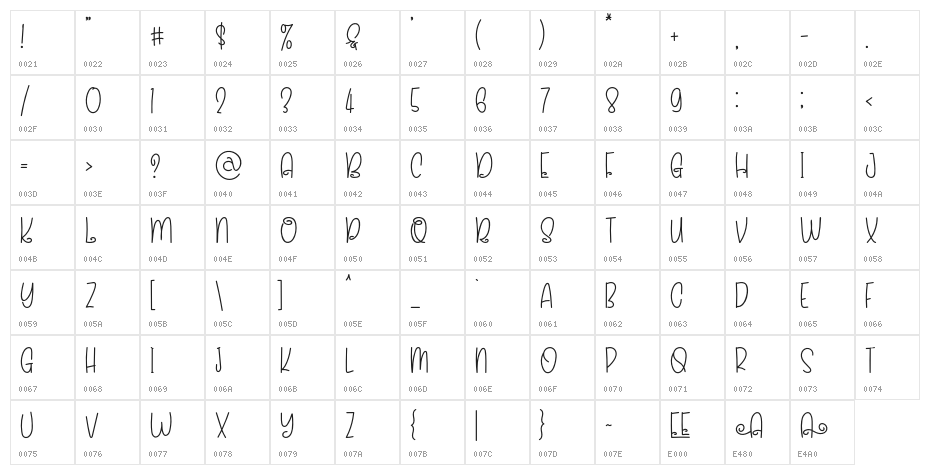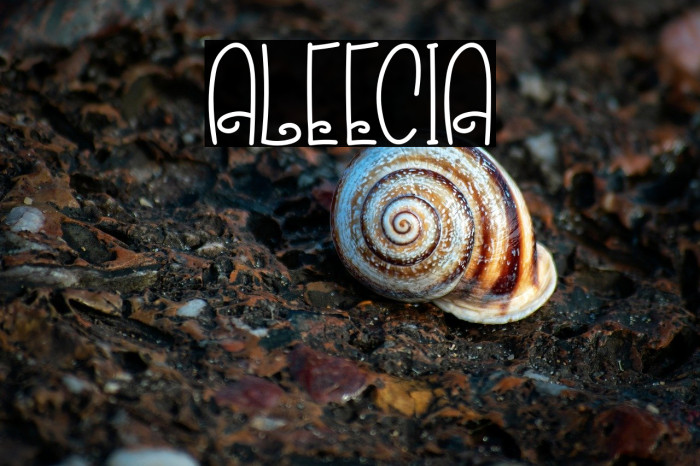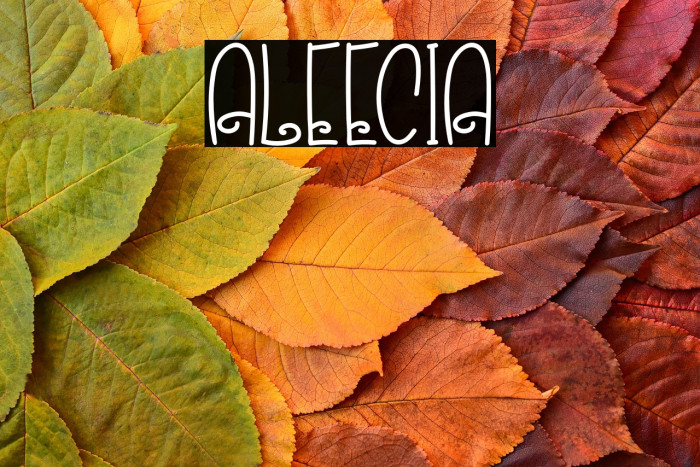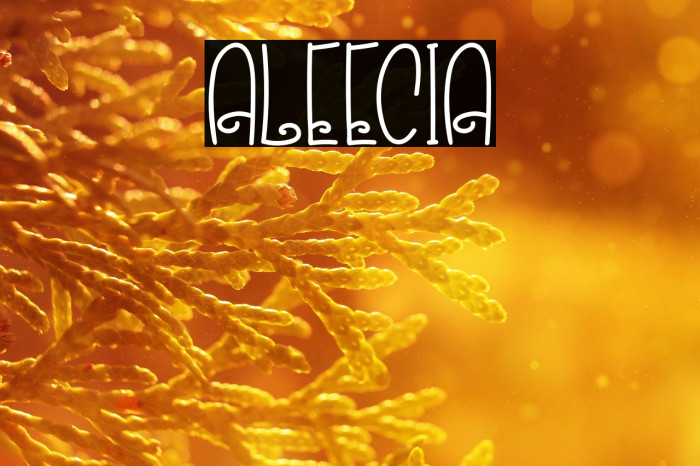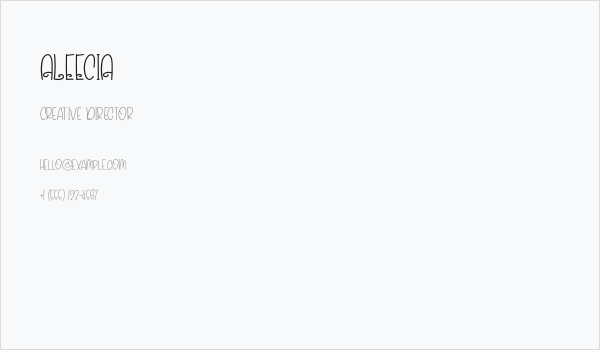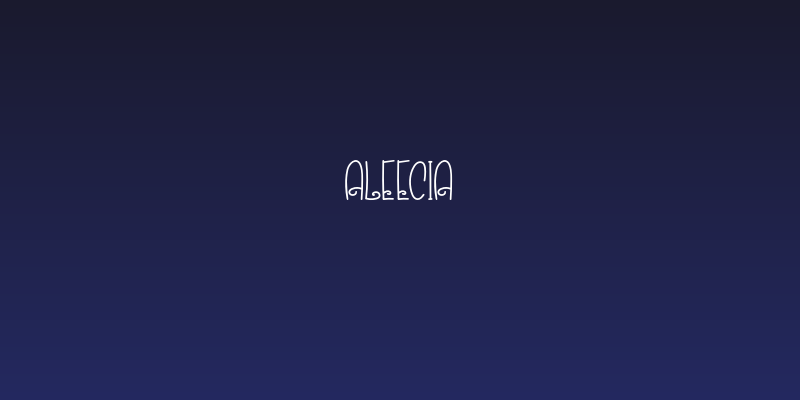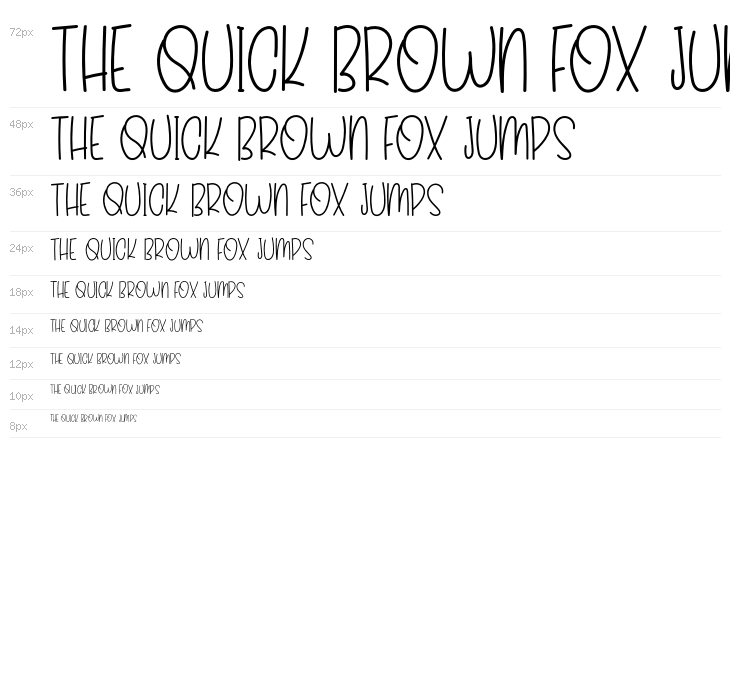
ALEECIA Font
This playful and whimsical font features tall, narrow characters with a hand-drawn appearance. The uppercase letters are slightly elongated, giving them a unique and quirky look. The lowercase letters maintain a consistent style, complementing the uppercase with their rounded and smooth curves. Numbers and special characters are designed to match the overall aesthetic, ensuring a cohesive look across all text. The font's informal style makes it ideal for creative projects that require a touch of personality and fun.
| Proposed Projects | Great for children's books, greeting cards, playful branding, and creative posters. |